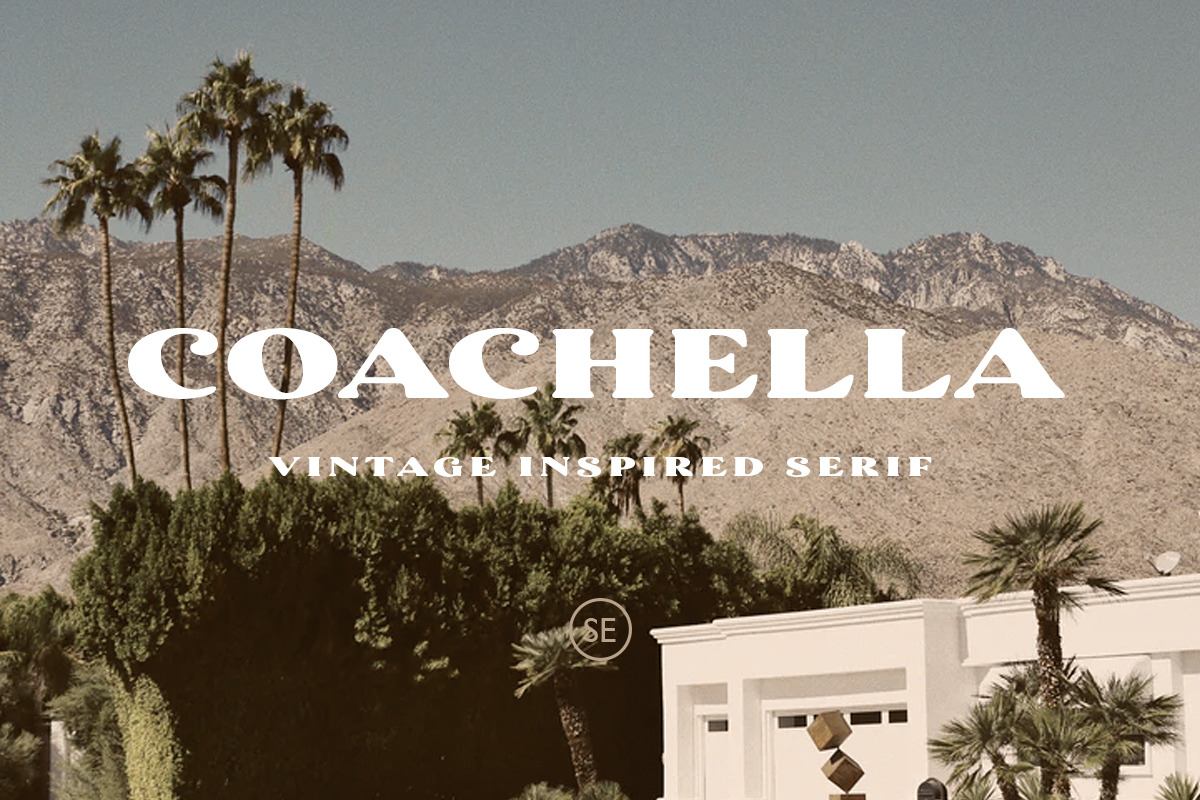
Coachella - Vintage Inspired Serif Font Free Download captures the essence of retro elegance with a modern twist. Featuring bold serifs, high contrast strokes, and timeless letterforms, this font is perfect for branding, editorial layouts, packaging design, and event posters that need a touch of vintage flair.
Inspired by the free-spirited vibe of the ‘60s and ‘70s, Coachella - Vintage Inspired Serif Font Free Download brings sophistication and bohemian charm to your creative projects. Its striking style makes it ideal for headlines, logos, and any design that calls for a bold, artistic statement.
Whether you're working on a fashion label, music event, or lifestyle brand, Coachella adds character and visual impact. Feel free to try it out for personal use or mockups, but please remember that a commercial license is required for professional use. Add retro soul to your typography with Coachella today!